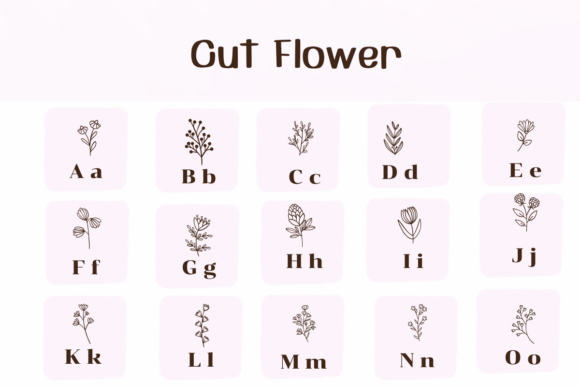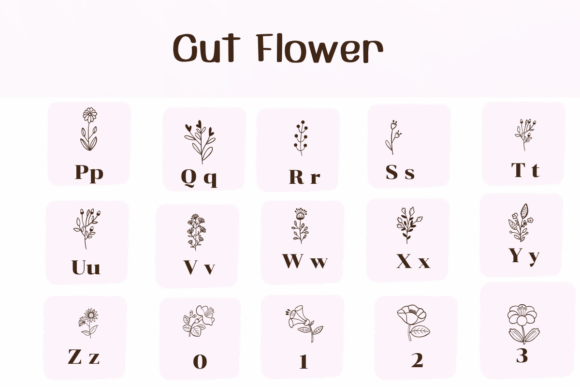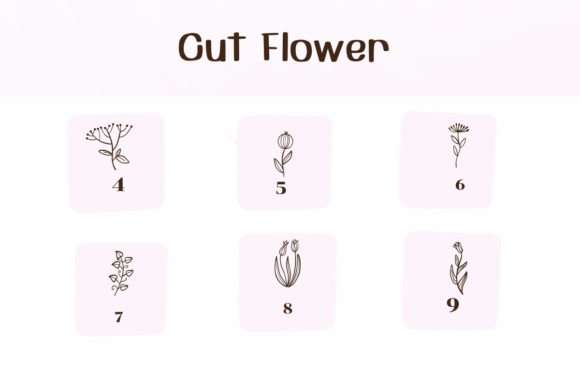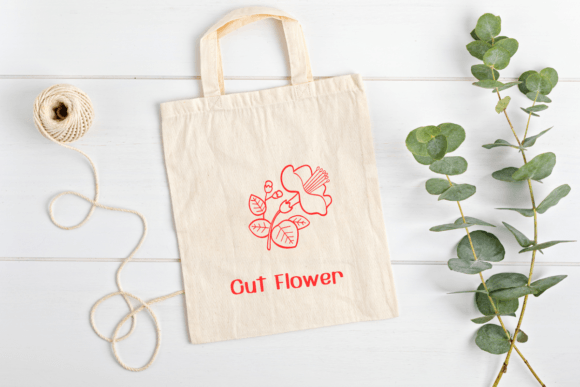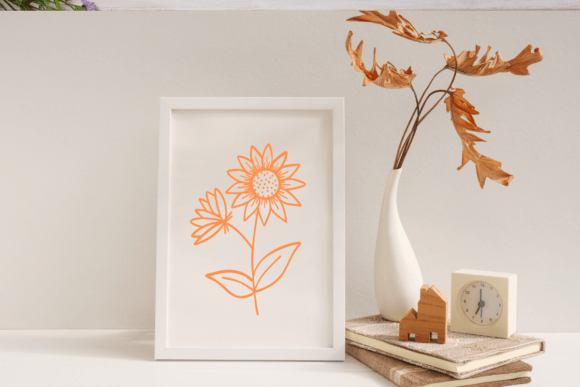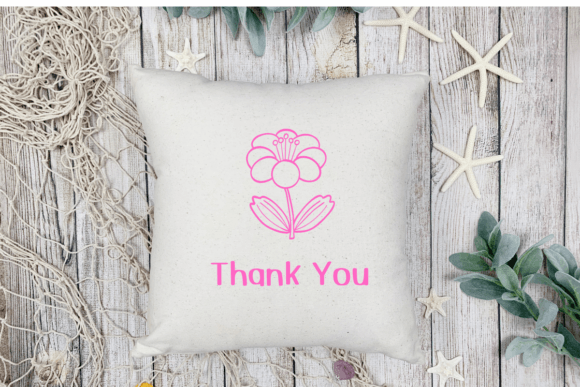
The Cute Flower Font: A Delightful Addition to Your Design Arsenal 🌸
I’ll never forget the time I was working on a whimsical wedding invitation project, and my client asked me to add a touch of nature to the design. I scoured the internet for the perfect font, but nothing seemed quite right. That’s when I stumbled upon the Cute Flower font, and it instantly became my go-to solution. In this article, I’ll share my experience with this charming dingbat font and provide you with a comprehensive guide on how to make the most of it.
An Honest Review of Cute Flower Font
What I Love About Cute Flower Font ✨
- 🌸 **Adorable flower designs**: The font is filled with an assortment of cute flower designs that can add a touch of elegance and playfulness to any project.
- ✅ **Easy to use**: Simply type, and cute flowers will appear! It’s a breeze to use, even for those who aren’t tech-savvy.
- 🎨 **Versatile**: The font is perfect for a wide range of creative projects, from crafts and invitations to digital designs and more.
- ⚠️ **Limited character set**: As a dingbat font, Cute Flower has a limited character set, which means you won’t be able to use it for body text or typing long paragraphs.
- ⚠️ **May not work well in all contexts**: The font’s playful nature might not be suitable for formal or professional projects, so use it judiciously.
The Backstory Behind Cute Flower Font
Cute Flower font was designed by a team of creatives who wanted to bring a touch of nature to digital designs. Inspired by the beauty of flowers and the world of botany, they crafted a font that would add a playful and whimsical touch to any project. Whether you’re a designer, crafter, or creative hobbyist, Cute Flower font is sure to delight.
| Font Name | Cute Flower Font |
| Author | Ketsarin |
| What type of projects is Cute Flower font best suited for? | Cute Flower font is perfect for creative projects like crafts, invitations, digital designs, and more. |